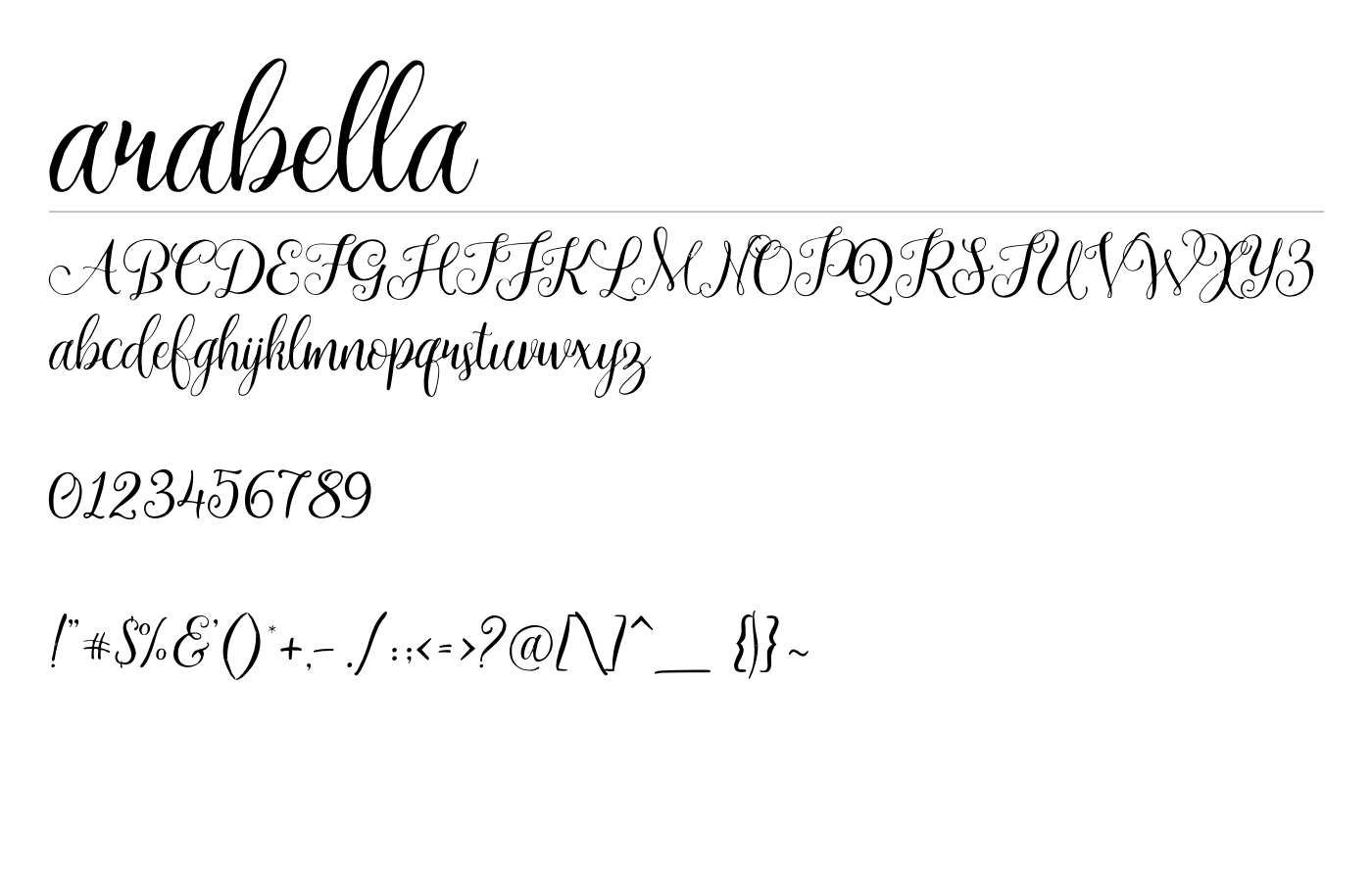
Arabella is an elegant and slender script font with delicate, flowing strokes that evoke a sense of sophistication and classic charm. Its fine lines and graceful swashes make it perfect for upscale branding, invitations, and decorative headlines where a touch of luxury and refinement is desired. This font shines in contexts that require a stylish and airy feel, lending a feminine and artistic personality to any design.
arabella Font
About arabella Font